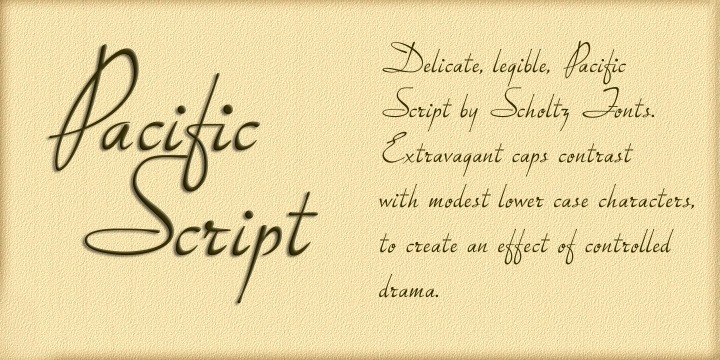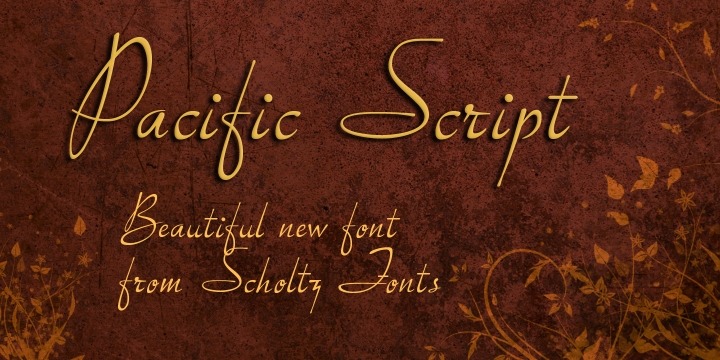
Pacific Script
Font Family by Scholtz Fonts
Pacific Script is a font inspired by an alphabet created by Howard Trafton in the 1930s. However, I felt it needed some changes to bring it to the cutting edge of 21st century font design.
Though designed as a display font, it works very successfully in longer passages of text, however, it should not be used in font sizes less than about 15 point. Small x height in contrast to extravagant caps gives the font a very dramatic feel.
Though it has cursive qualities, the characters in this font do not connect, making it slightly more legible and less like handwriting.
The inclusion of 26 alternate upper case characters give the user the freedom to create a hand crafted design. Language support includes all European character sets.